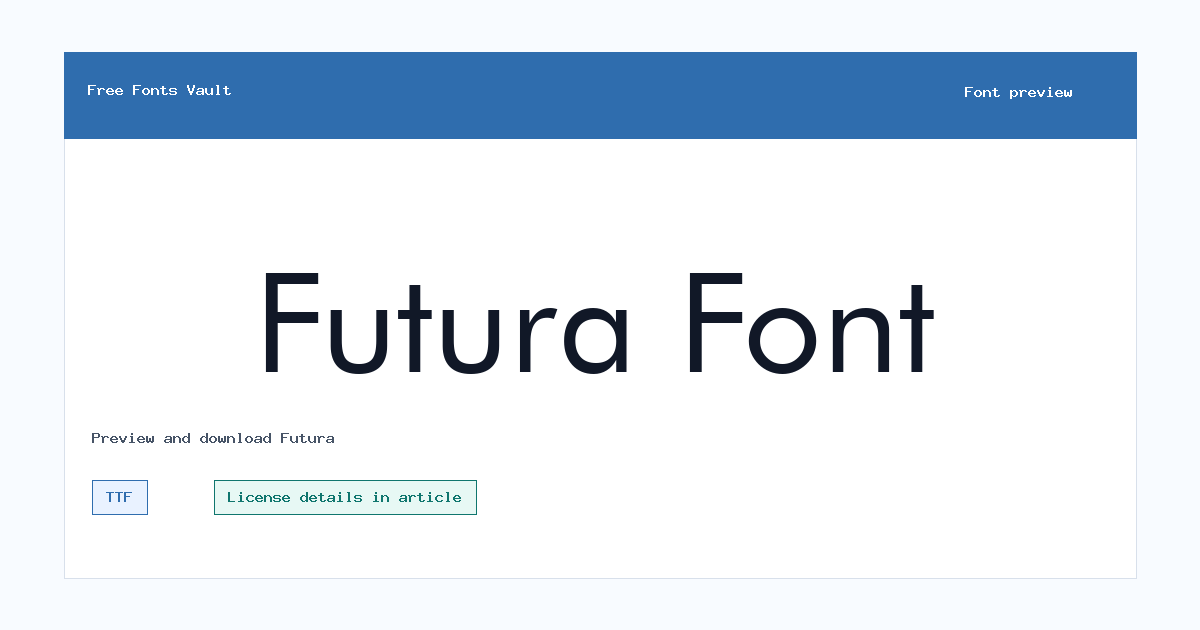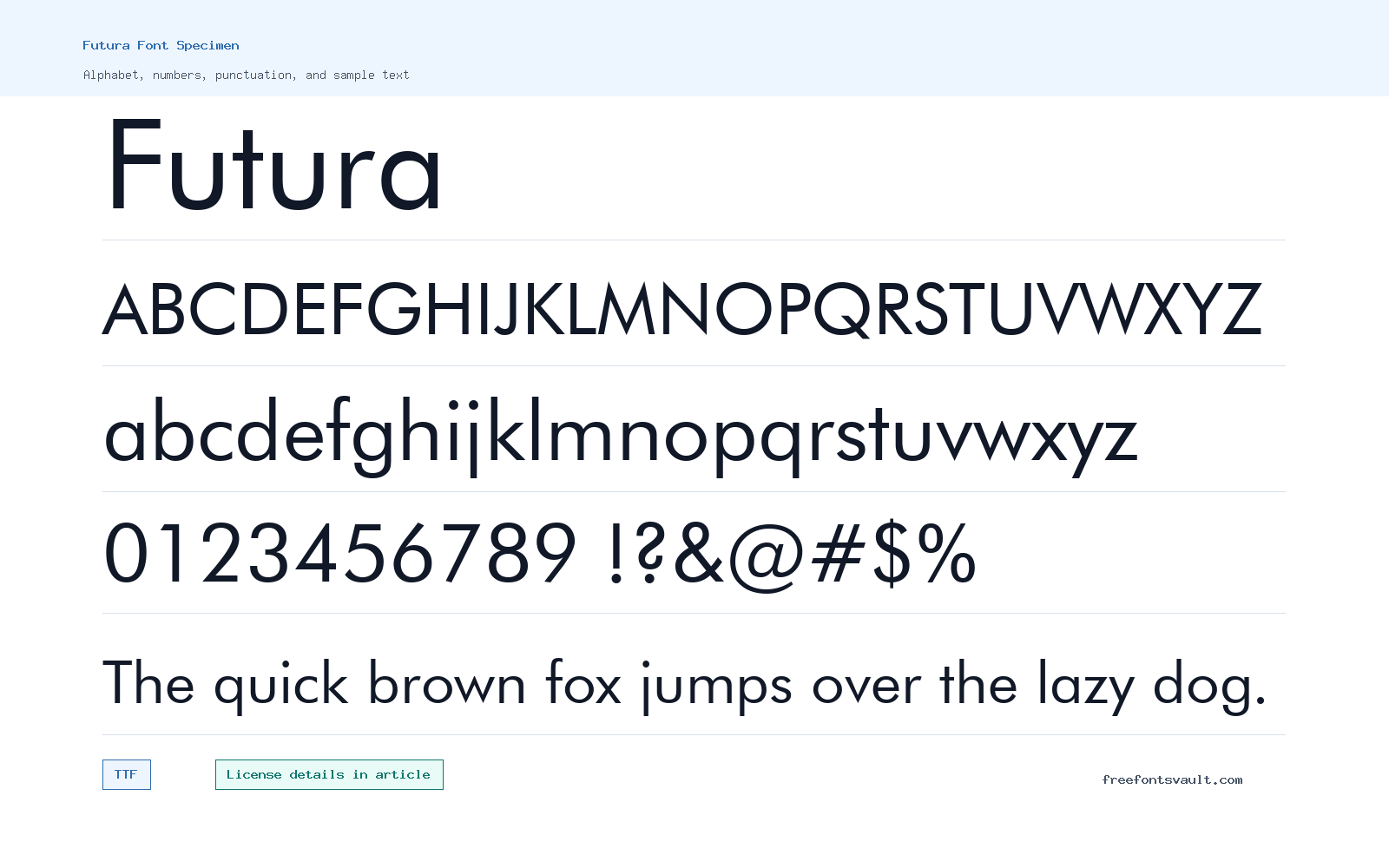
Futura
Futura is a geometric sans serif font family with clean shapes, round forms, and a direct modern feel. Use the preview tool to test its lighter, heavier, and condensed styles before downloading.
About Futura
Futura is known for a geometric sans serif look: simple round letters, firm verticals, and a tidy rhythm that works well in short text. Historical sources describe Futura as a typeface first published by Bauer in 1927 and associated with Paul Renner's original design. The files on this download page are Futura-named digital font files, so treat them as local downloadable versions rather than assuming they are the same as current official Futura products sold by Bauer Types or Monotype.
The family selection here gives you several practical choices, including Book, Light, Bold, Heavy, Extra Black, Condensed Light, Medium Condensed, and condensed extra black styles. The lighter weights can suit clean headings or simple interface mockups, while the bold and black cuts are better for posters, display titles, and short branding tests. Condensed styles save horizontal space but can feel tight in long paragraphs, so test them with your real words before using them in a layout.
- Geometric sans serif appearance with clean, rounded letter shapes
- Headlines, posters, title graphics, and short display text
- Logo mockups, packaging tests, social images, and clean editorial layouts
The file credit available for this page names Bitstream Inc. Historical Futura references identify Paul Renner with the original Futura typeface published by Bauer in 1927, but that does not prove these downloadable files are an official Bauer or Monotype release.
Use Futura mainly where the text is short and needs a clean geometric tone. For body copy, test size, spacing, and line length carefully, especially with condensed or very heavy styles. Pair it with a calmer serif or a neutral sans if the page needs longer reading sections.
Which Futura style should I use for headlines?
Book, Medium, Bold, Heavy, and Extra Black can all work for headlines. Use heavier styles for short, bold titles and lighter styles for cleaner, quieter headings.
Can I use the condensed styles for paragraphs?
Condensed styles are usually better for short text, labels, posters, or narrow spaces. For paragraphs, preview a full sentence first because condensed letters can reduce reading comfort.
Is this the same as Futura Now or Bauer's current Futura?